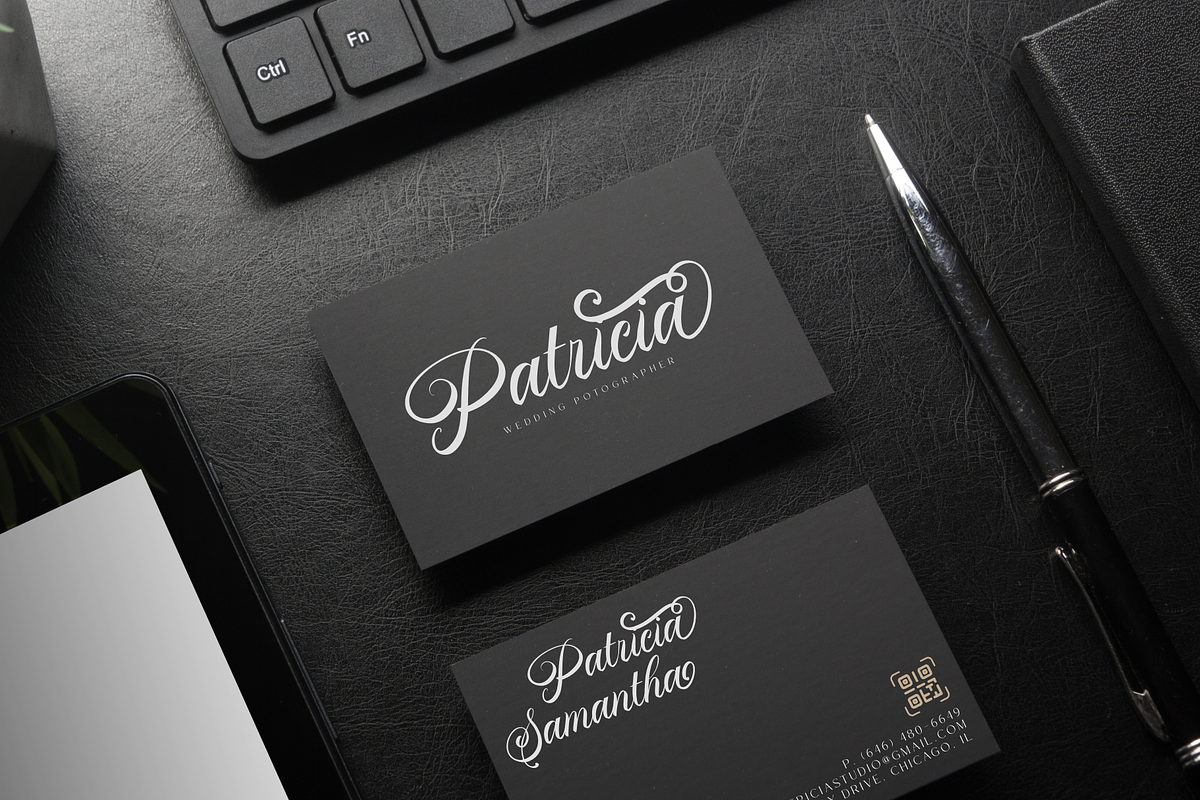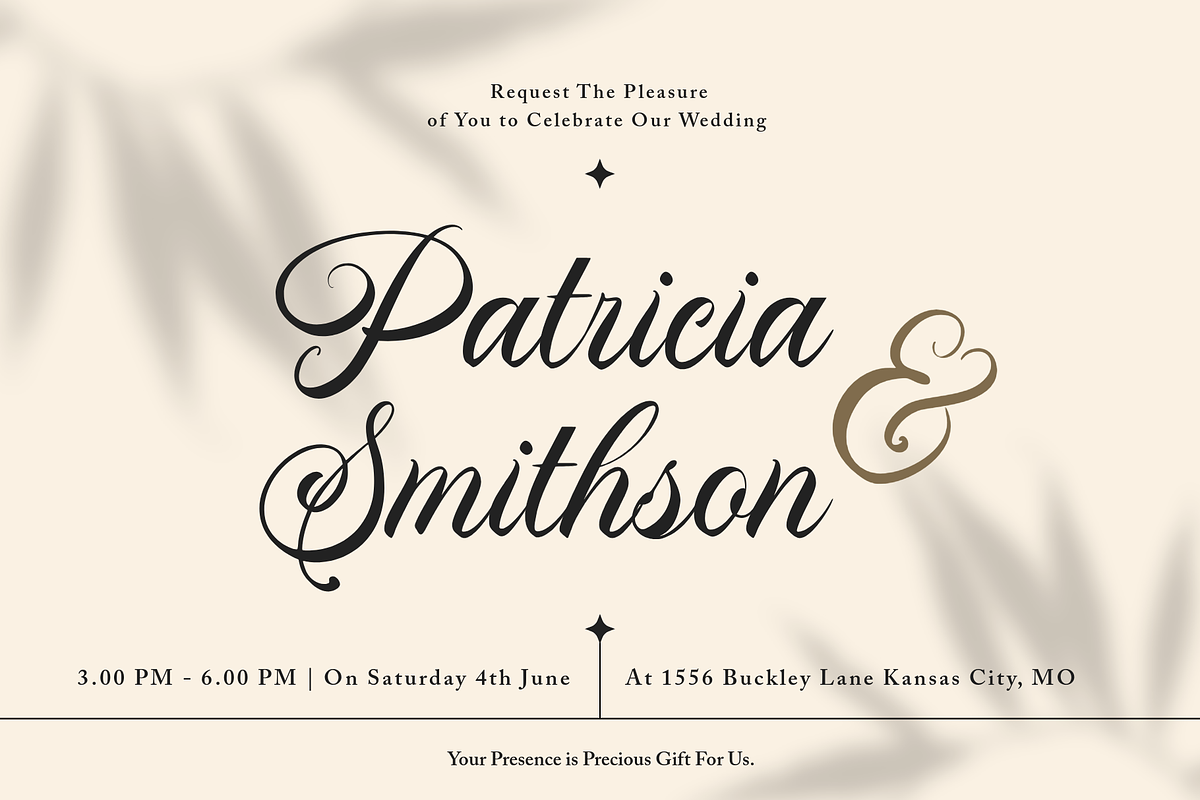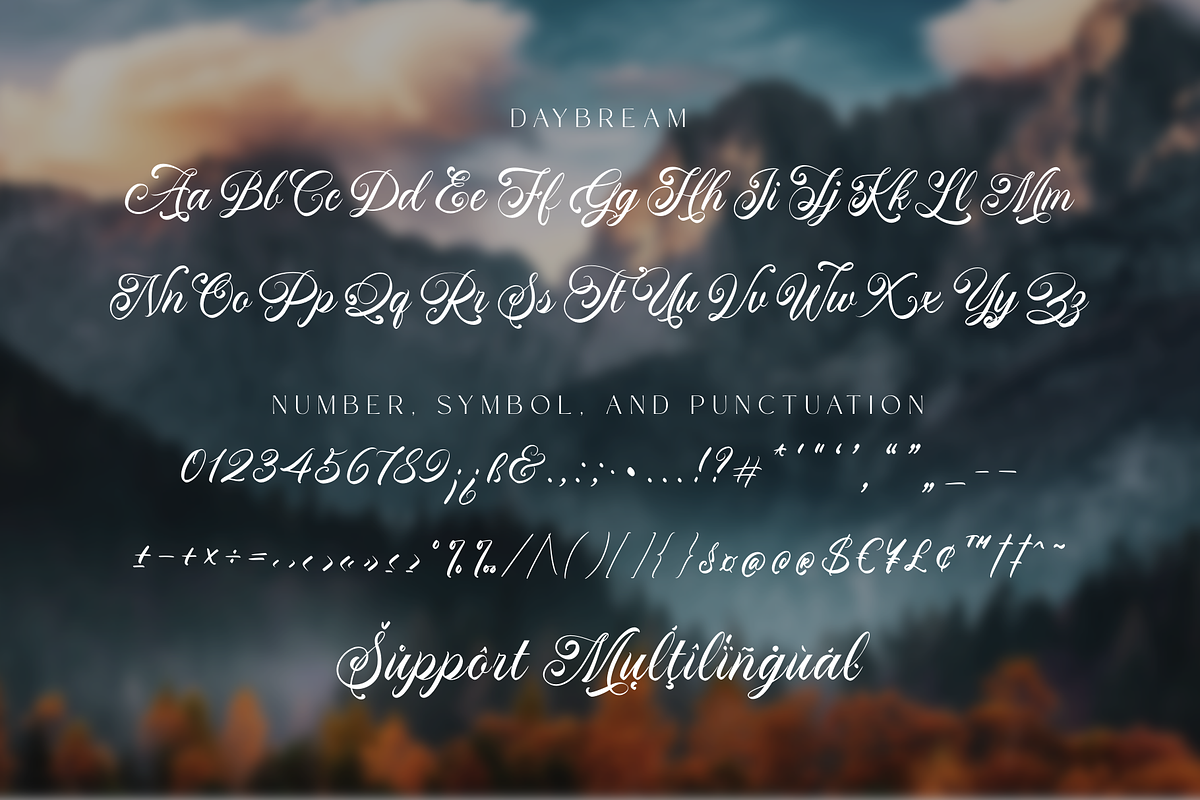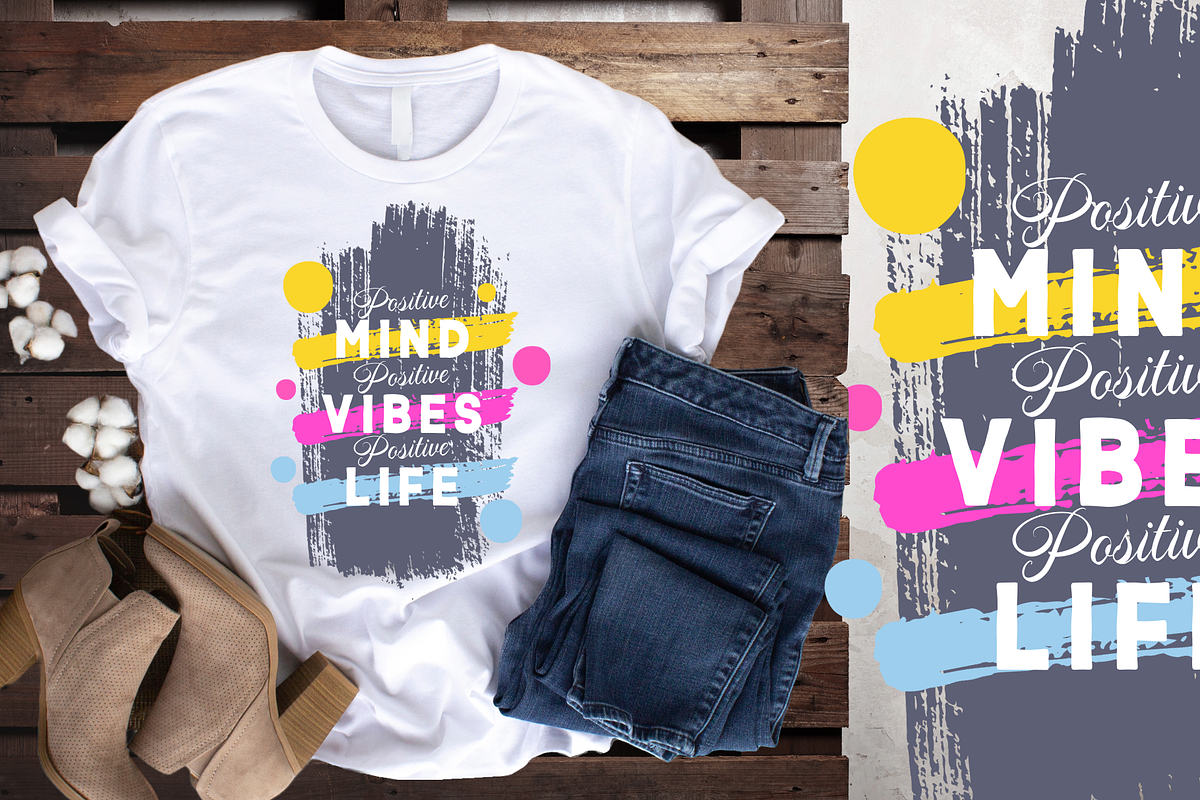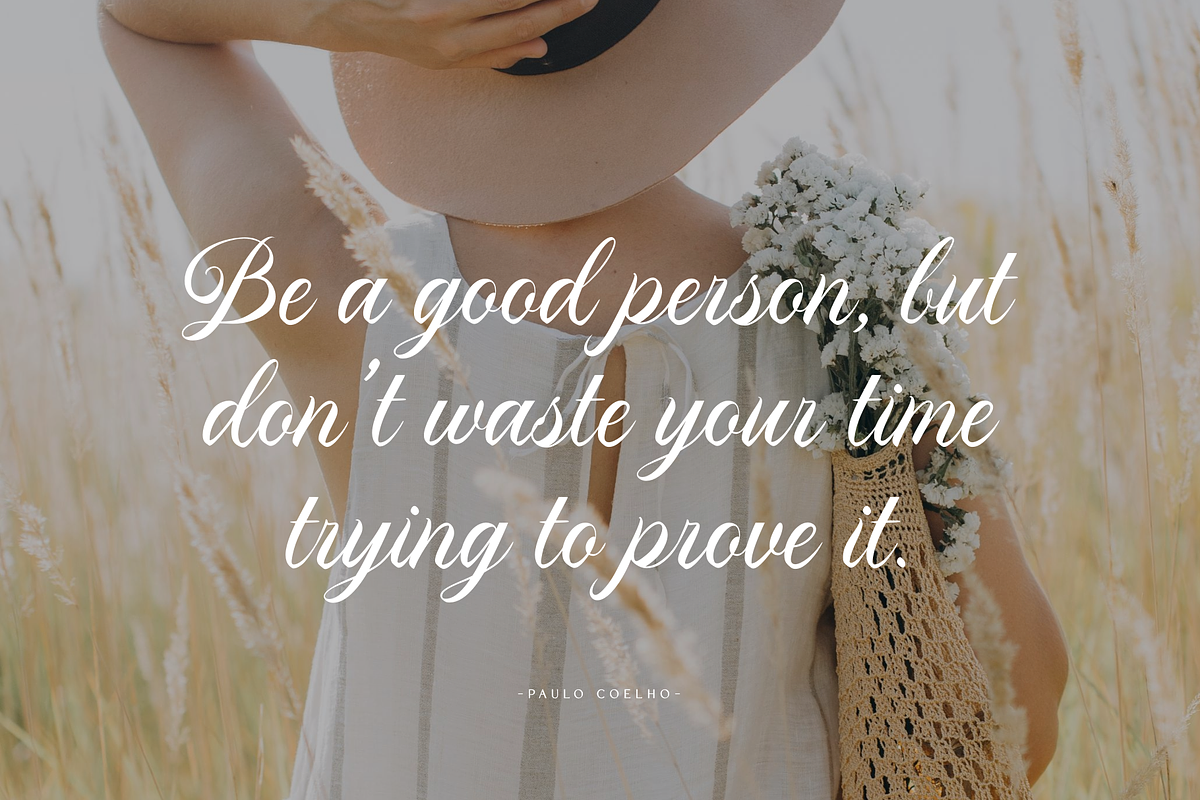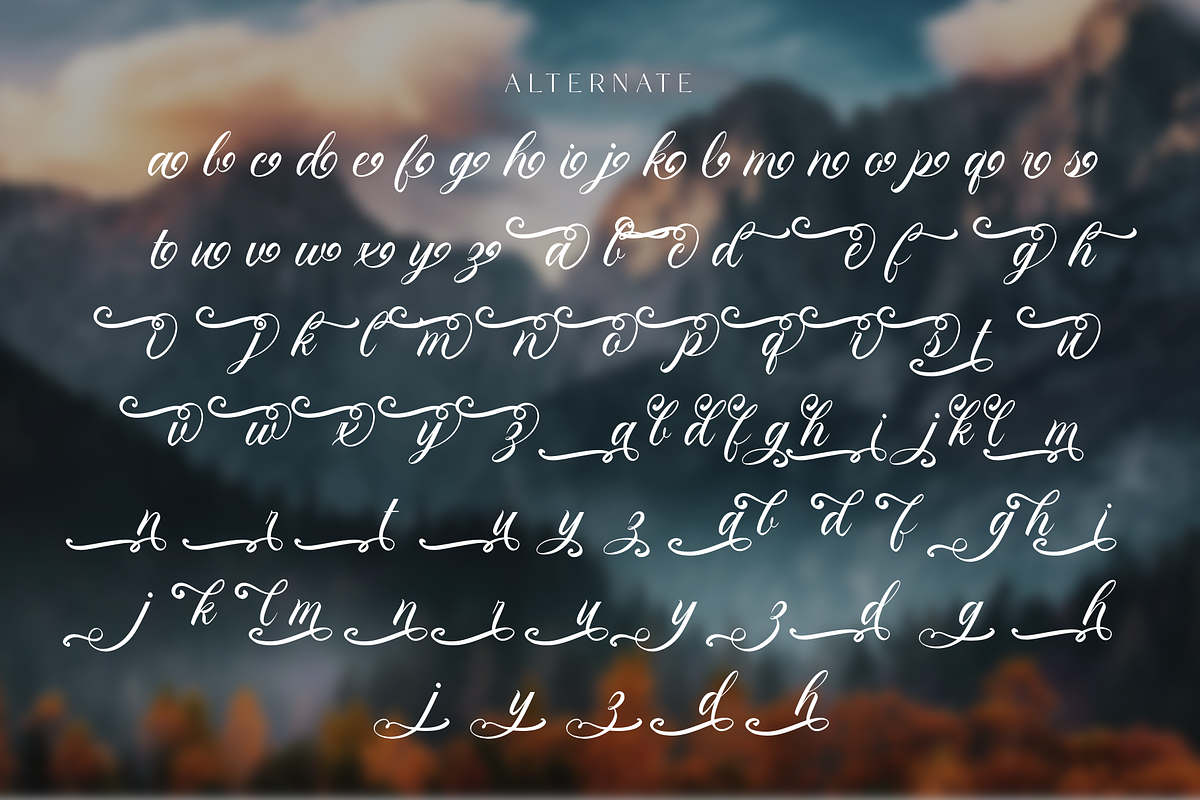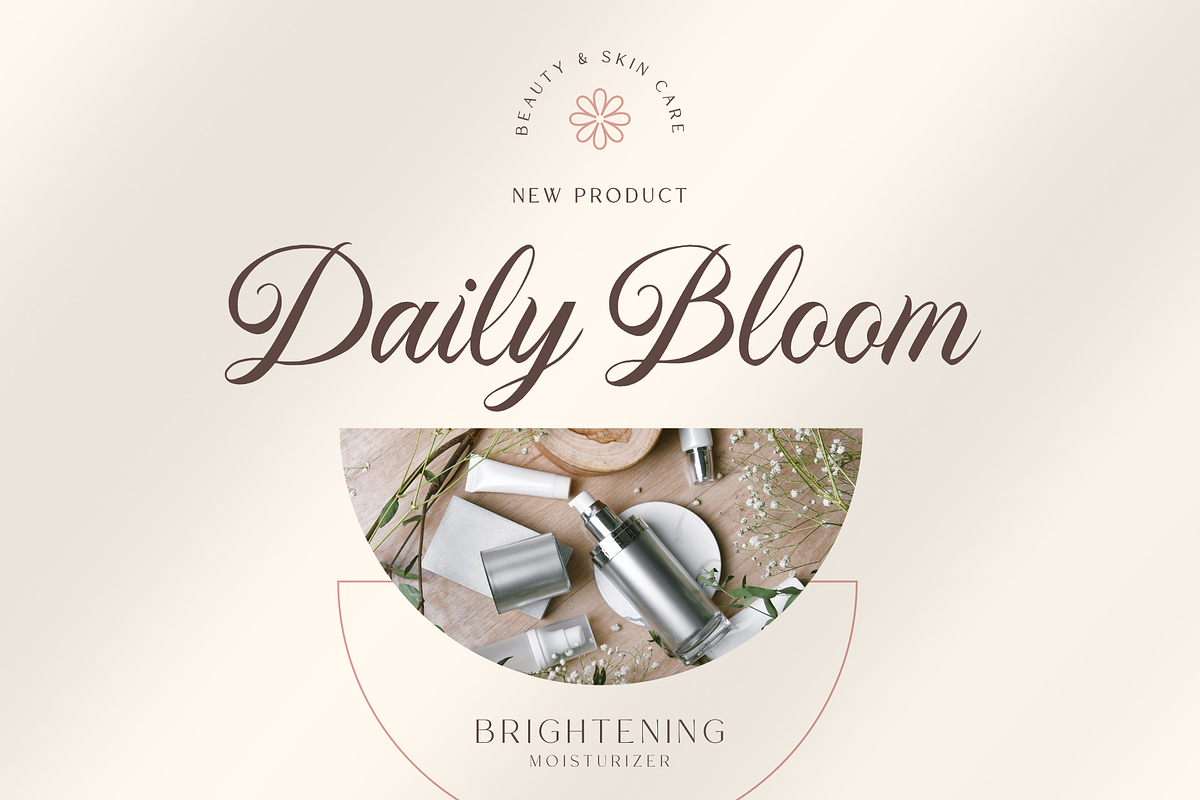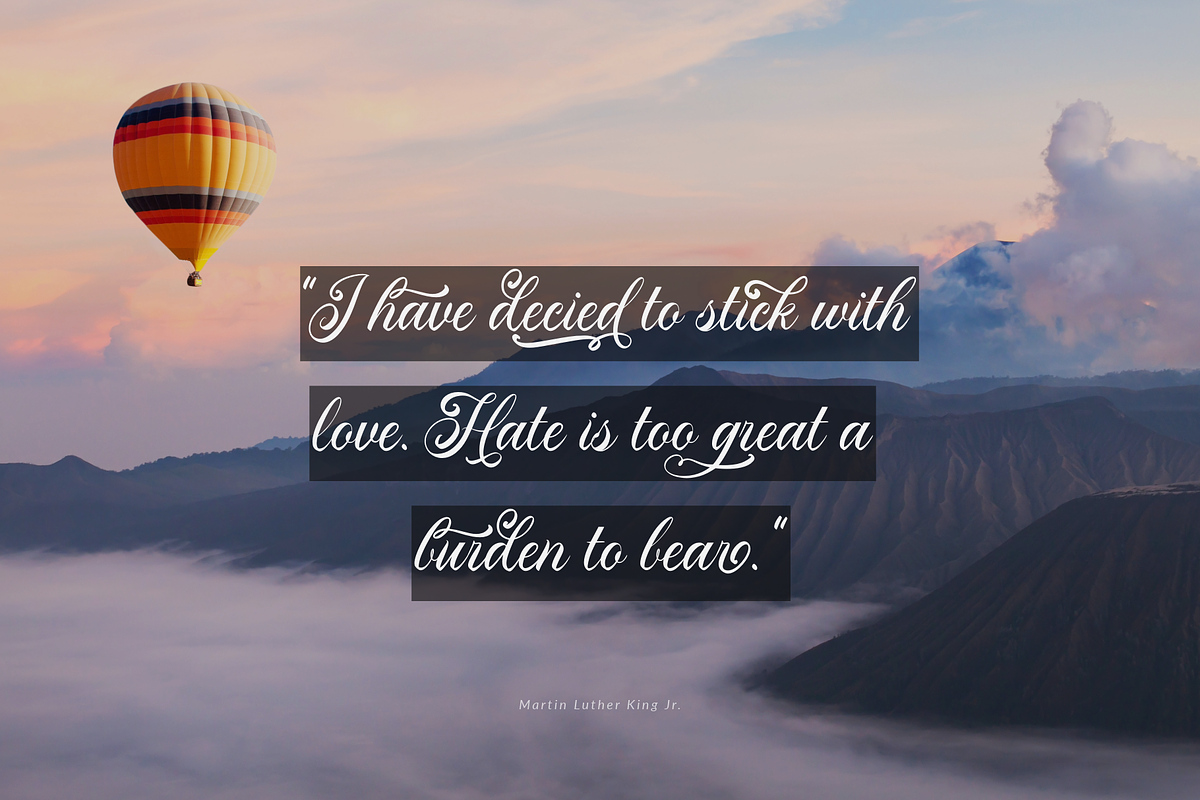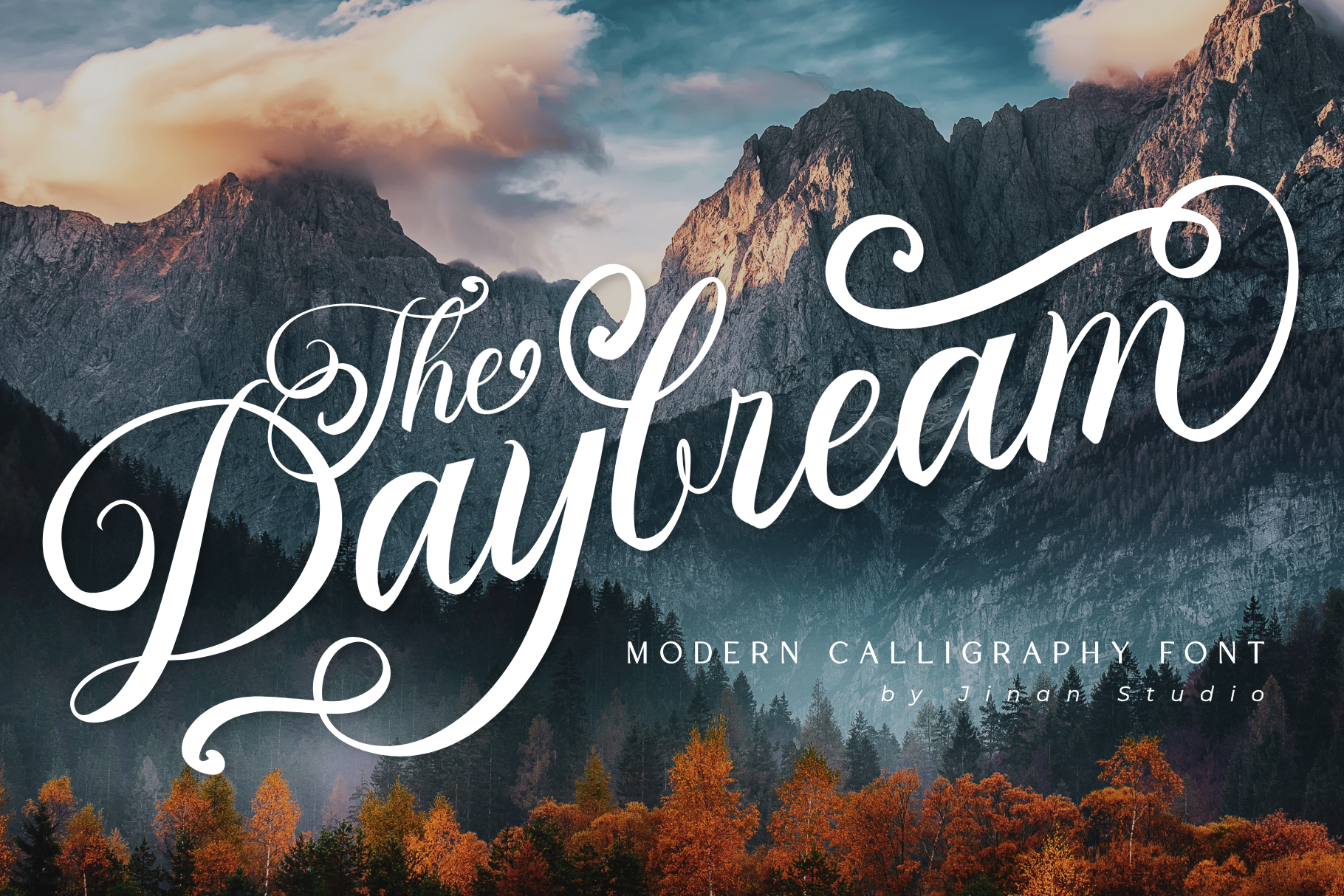
Daybream - Modern Calligraphy Font
Meet The Daybream - a chic, modern calligraphy font that exudes sophistication and elegance. This stunning script stands out with its detailed swirls and graceful curves, effortlessly infusing luxury and allure into any design endeavor. Ideal for invitations, branding, or decorative design, The Daybream artfully intertwines traditional calligraphic elements and a keen modern edge. Timeless, adaptable, and eternally stylish, The Daybream ensures your text springs to life in a beautifully elegant fashion. Harness the sheer artistry of The Daybream and give your text an eloquent makeover that won't go unnoticed.
- A set of uppercase and lowercase glyphs
- Number, symbol, and punctuation